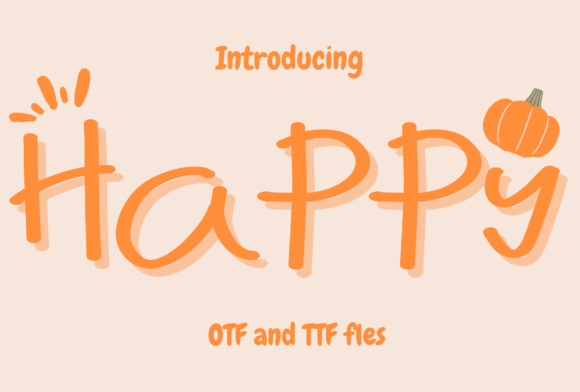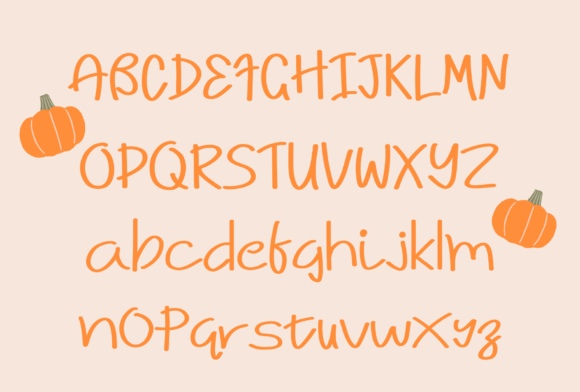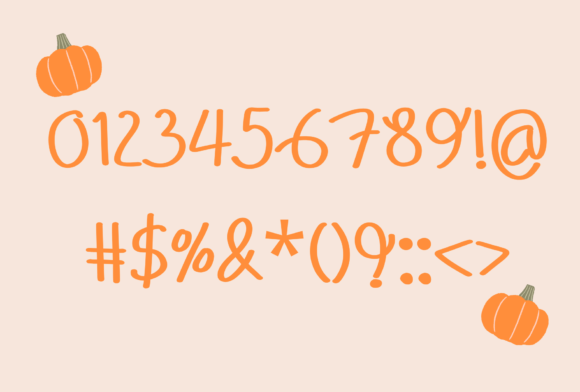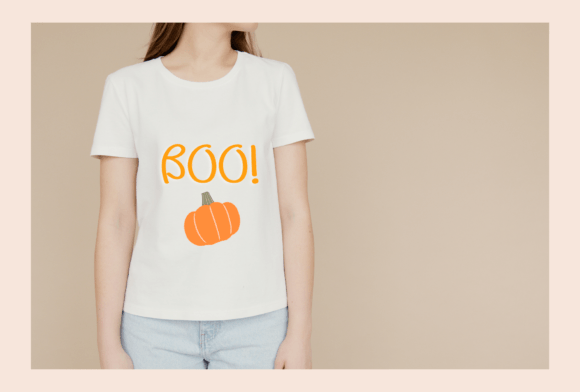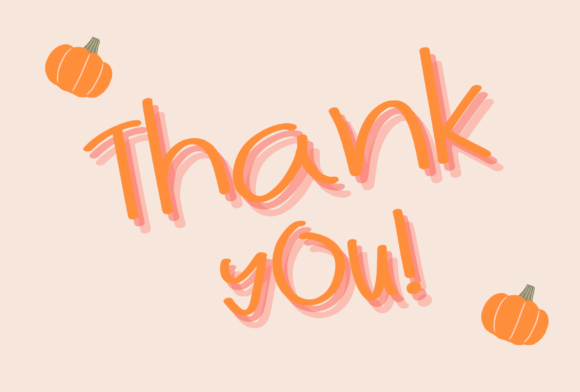
That’s where the Happy Font comes in – a sweet and friendly handwritten font that’s sure to put a smile on your face. Its natural and unique style makes it incredibly fitting to a large pool of designs, from invitations to social media graphics. With the Happy Font, the only limit is your imagination!
As a valuable tool for designers, the Happy Font offers endless possibilities for creative expression. Whether you’re a seasoned pro or just starting out, this font is sure to bring a touch of warmth and personality to your next project.
Happy Font Key Features
- Unique Characteristics: Happy Font features a unique, hand-drawn design with a playful and modern feel, making it perfect for branding, advertising, and editorial projects.
Happy Font Review
When I first started working with “Happy Font”, I was immediately drawn to its cheerful and playful aesthetic. ✨ The font’s rounded edges and smooth curves give it a friendly and approachable feel that’s perfect for designs where you want to convey happiness and positivity. I’ve used it for a number of social media graphics and it always gets a smile from my clients!
One of the things I love about “Happy Font” is its versatility. ✨ It’s not too bold or overpowering, so it works well in a variety of design contexts. I’ve used it for everything from headings and titles to body text and even icons. The font also has a nice range of weights and styles, which makes it easy to create visually interesting designs.
- ⚠️ In some cases, the font can feel a bit too playful or childish. If you’re working on a design where you want to convey a more serious or professional tone, you may want to consider a different font.
- ⚠️ The font can be a bit difficult to read at smaller sizes, so you may need to adjust the font size or line height to ensure that the text remains legible.
Overall, I really like “Happy Font” and think it’s a great addition to any designer’s toolkit. While it may have some limitations, its versatility and cheerful aesthetic make it a great choice for a wide range of design projects.
Happy Font is ideal for use in:
- Children’s books and educational materials.
- Party invitations and decorations.
- Marketing materials and advertising campaigns.